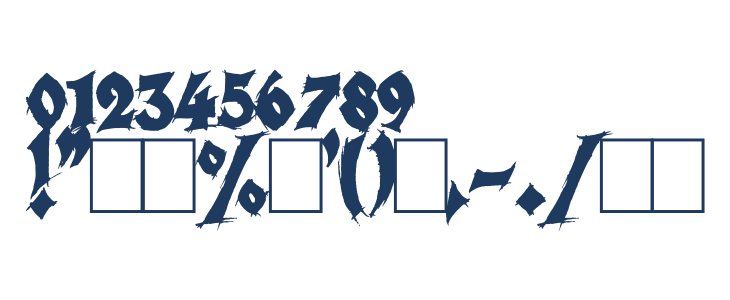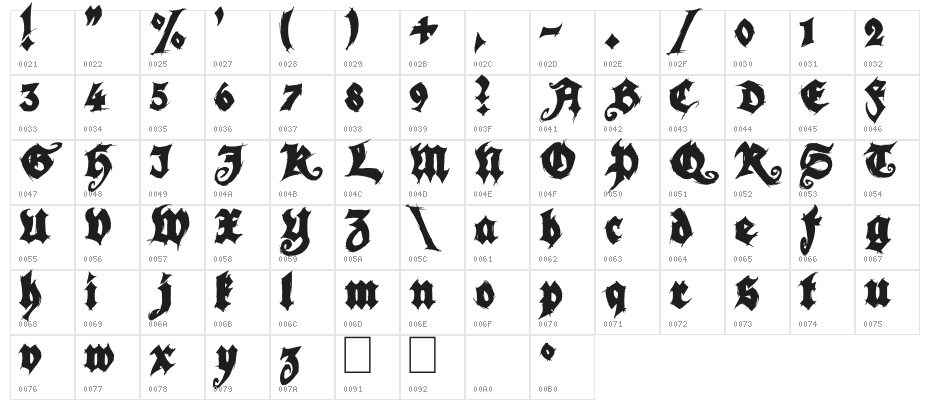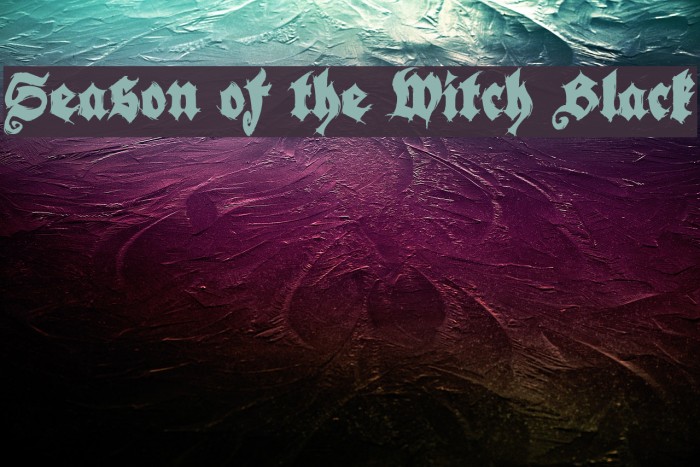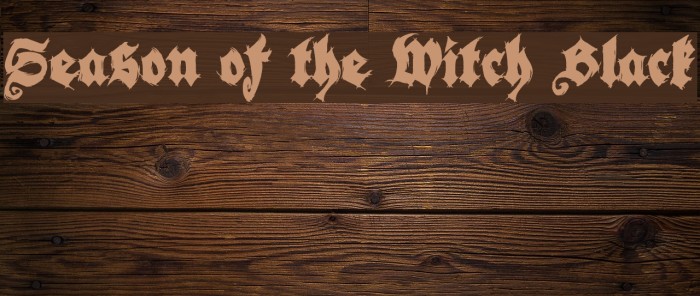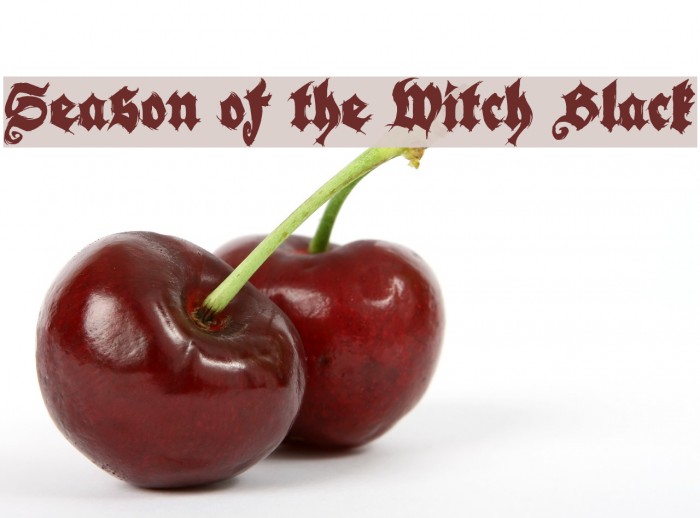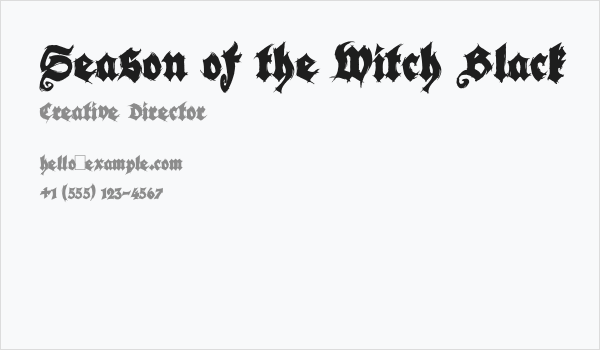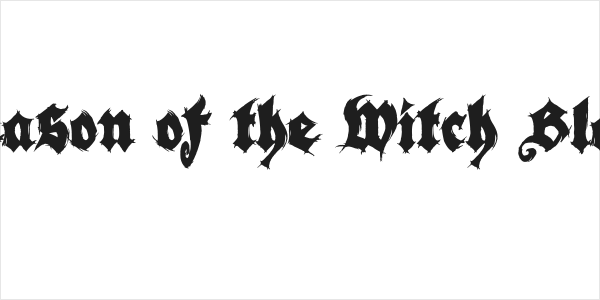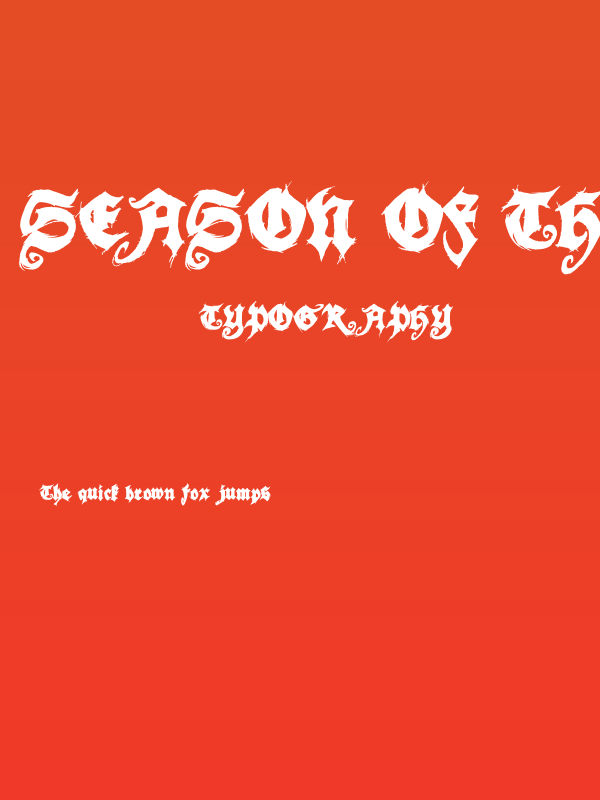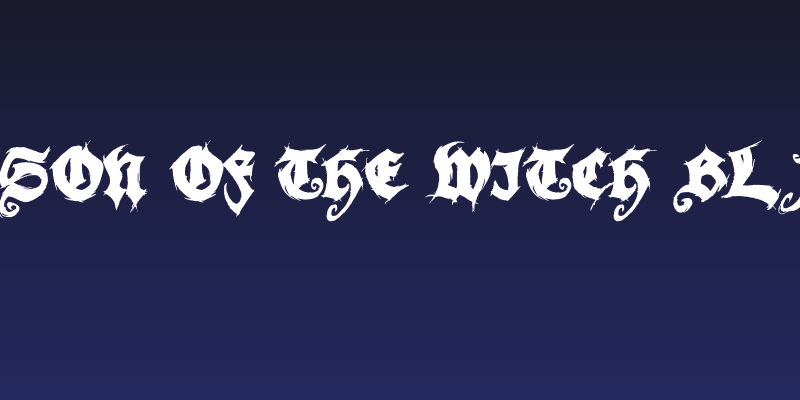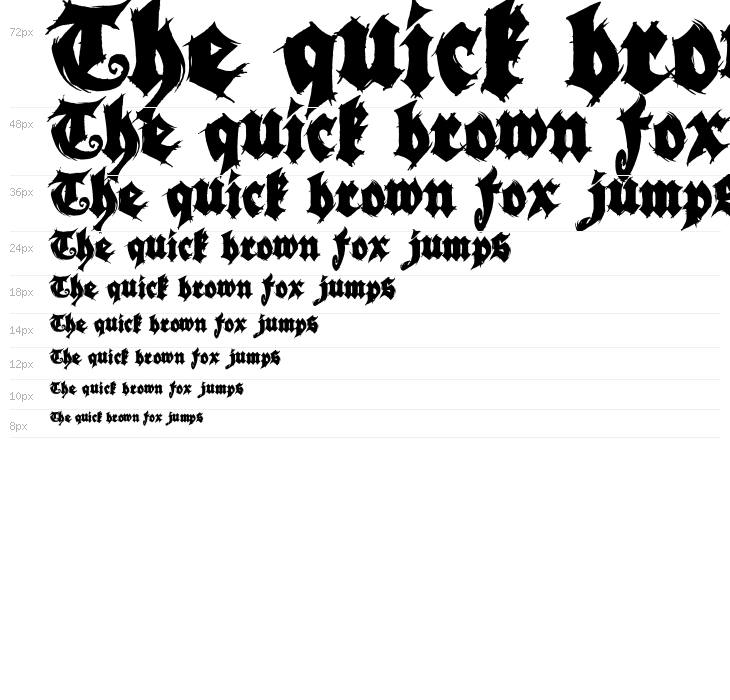
Season of the Witch Black Font
Season of the Witch Black Description
This font exudes a gothic and mystical aura, characterized by its sharp, angular strokes and intricate detailing. The uppercase letters are bold and commanding, with dramatic flourishes that evoke a sense of mystery and enchantment. The lowercase letters maintain the same level of intricacy, ensuring a cohesive and striking visual impact. Numbers and special characters are equally elaborate, making this font ideal for projects that require a touch of the fantastical or the arcane. Its unique style is reminiscent of medieval scripts, yet it carries a modern twist that makes it versatile for contemporary designs.
| Overall Style | Gothic, Mystical, Decorative |
| Proposed Projects | Perfect for Halloween-themed designs, fantasy book covers, gothic event invitations, and branding for alternative or mystical products. |